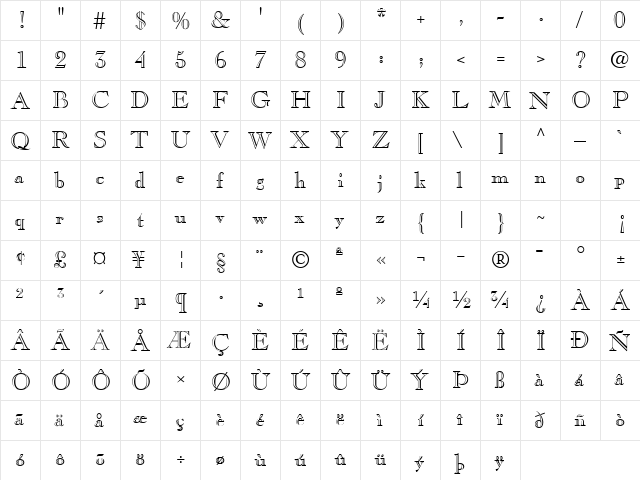
PT Cornerstone Normal
Design Context for PT Cornerstone Typeface
PT Cornerstone offers clean, dependable letterforms without strong stylistic allegiance, making it a practical choice for designers who need flexibility.
Pro Tip: Pair PT Cornerstone with a font of contrasting weight or personality to build a more expressive typographic hierarchy.